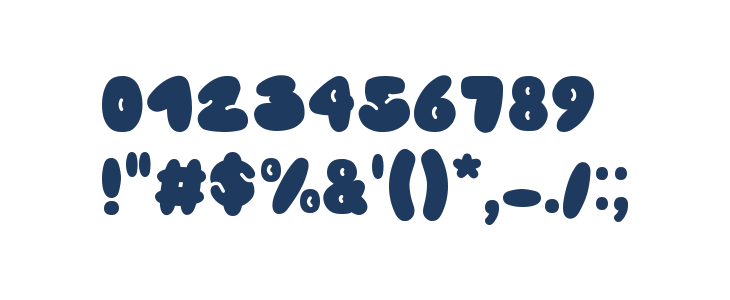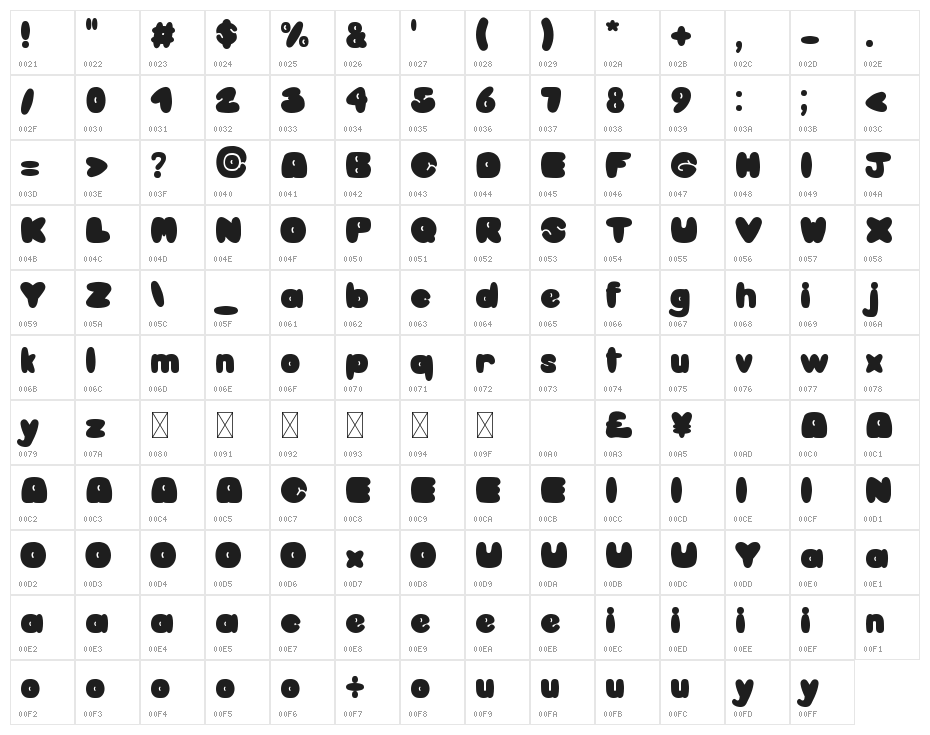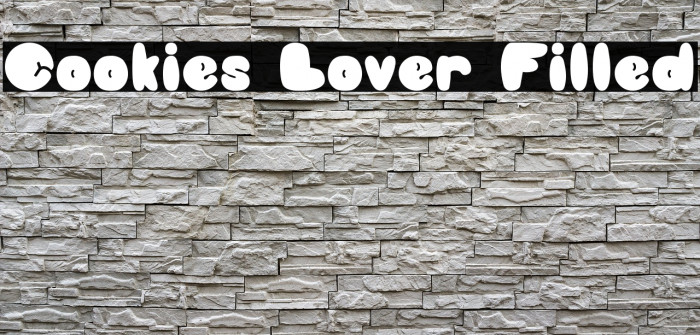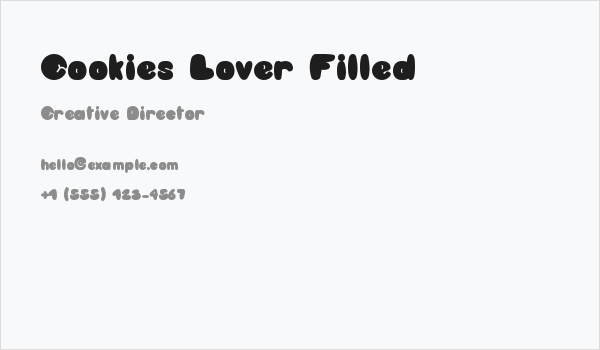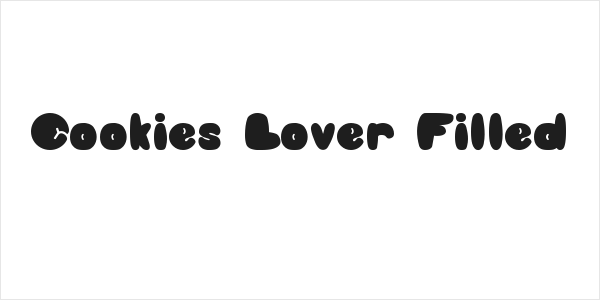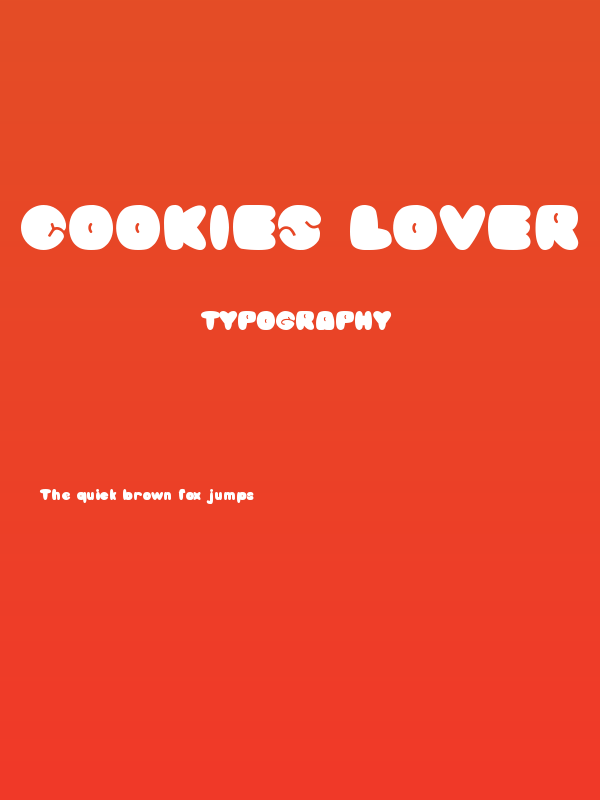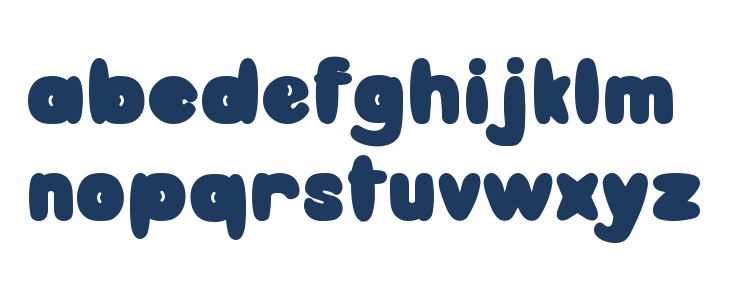
Cookies Lover Filled Font
Cookies Lover Filled Description
This playful and bold font features rounded, bubble-like characters that convey a sense of fun and whimsy. The letters are thick and filled, with a consistent weight throughout, giving them a strong presence on the page. The overall style is reminiscent of playful, childlike designs, making it ideal for projects that require a touch of humor or lightheartedness. The characters are evenly spaced, with a slightly tight kerning that enhances the compact and cohesive look. The font includes a full set of uppercase and lowercase letters, numbers, and a variety of special characters, ensuring versatility for different design needs.
| Proposed Projects | Ideal for children's books, playful branding, party invitations, and whimsical posters. |